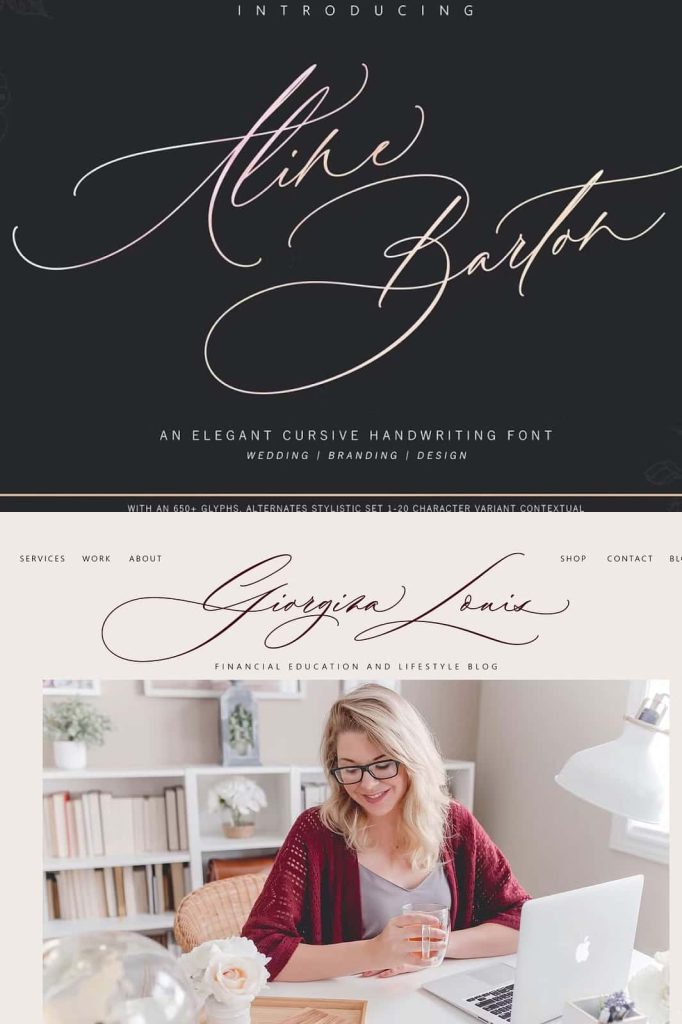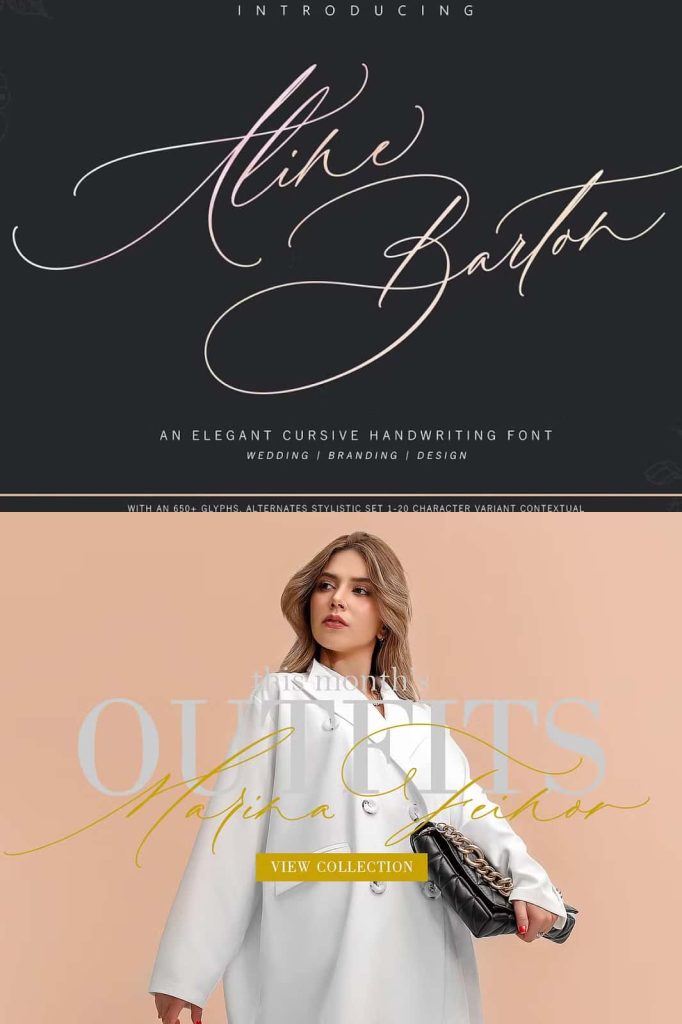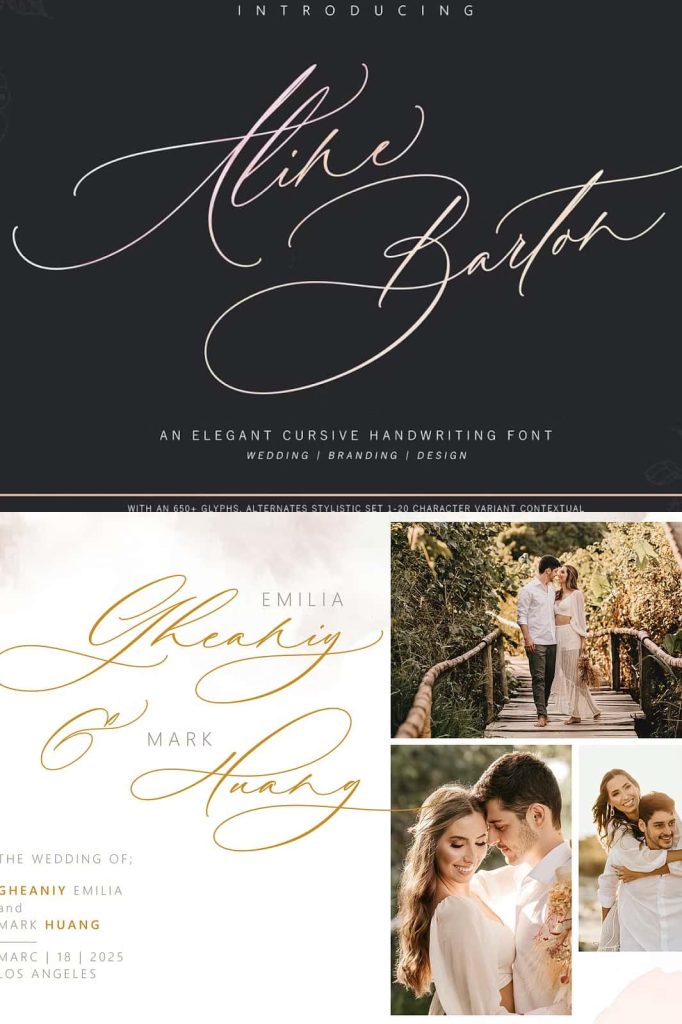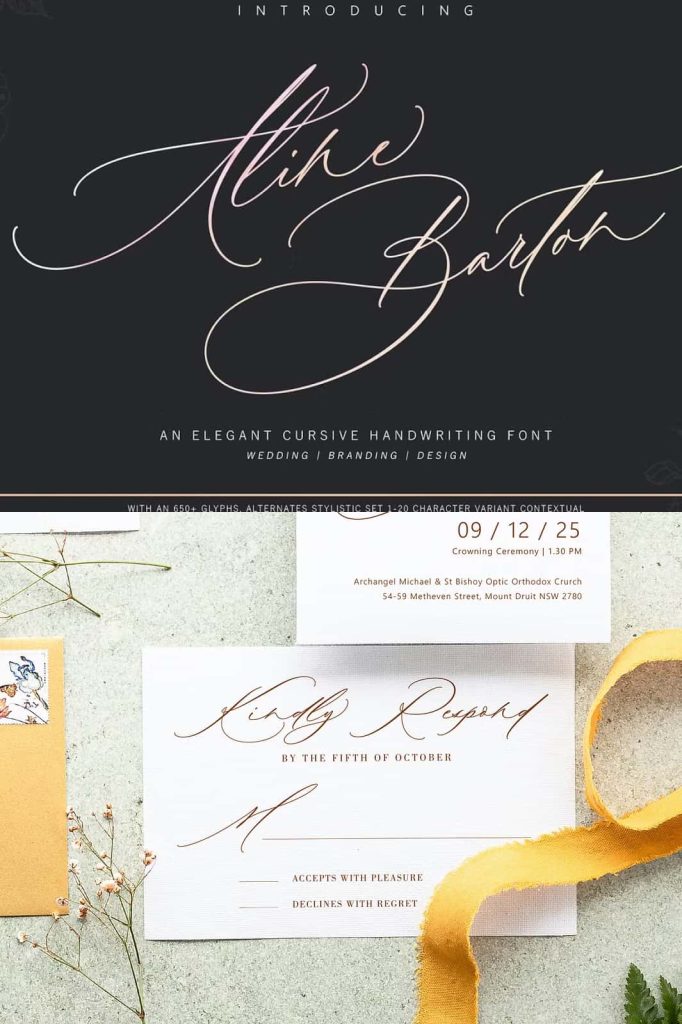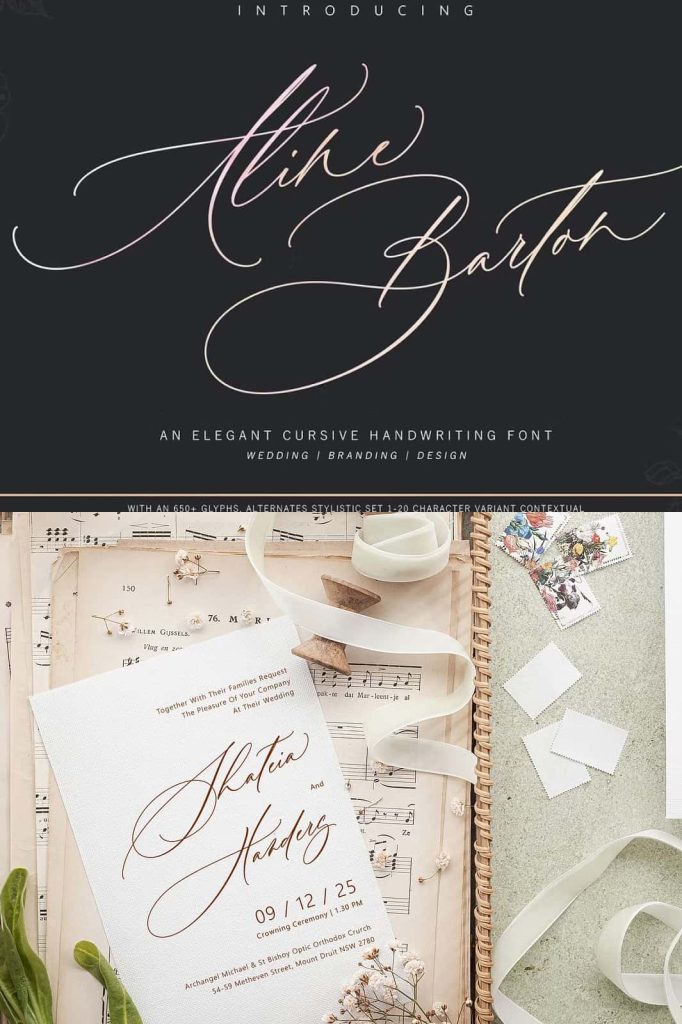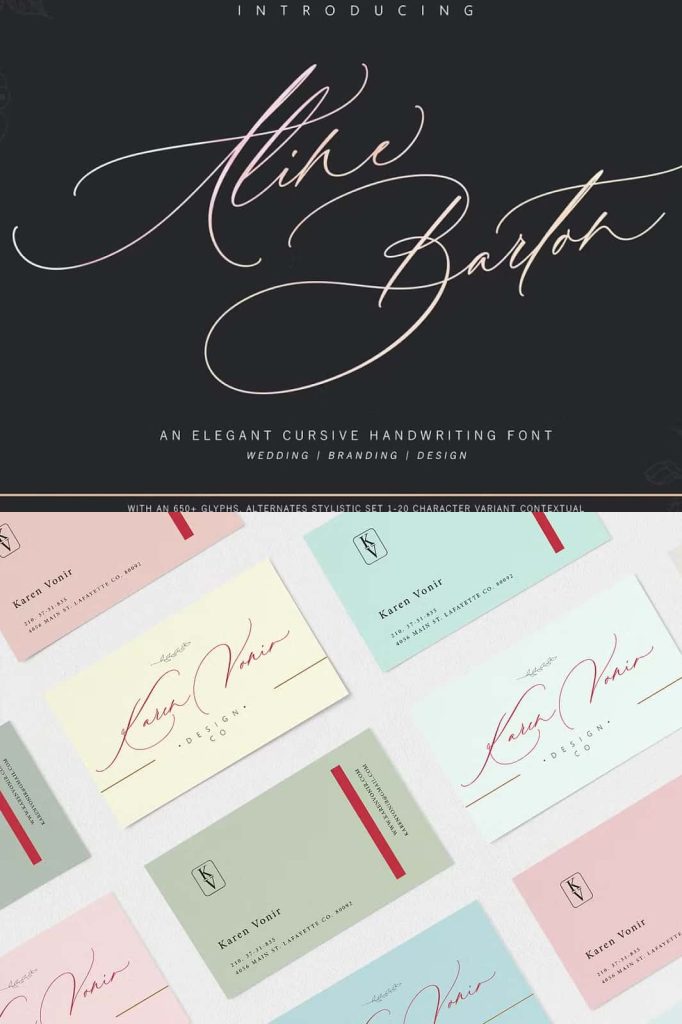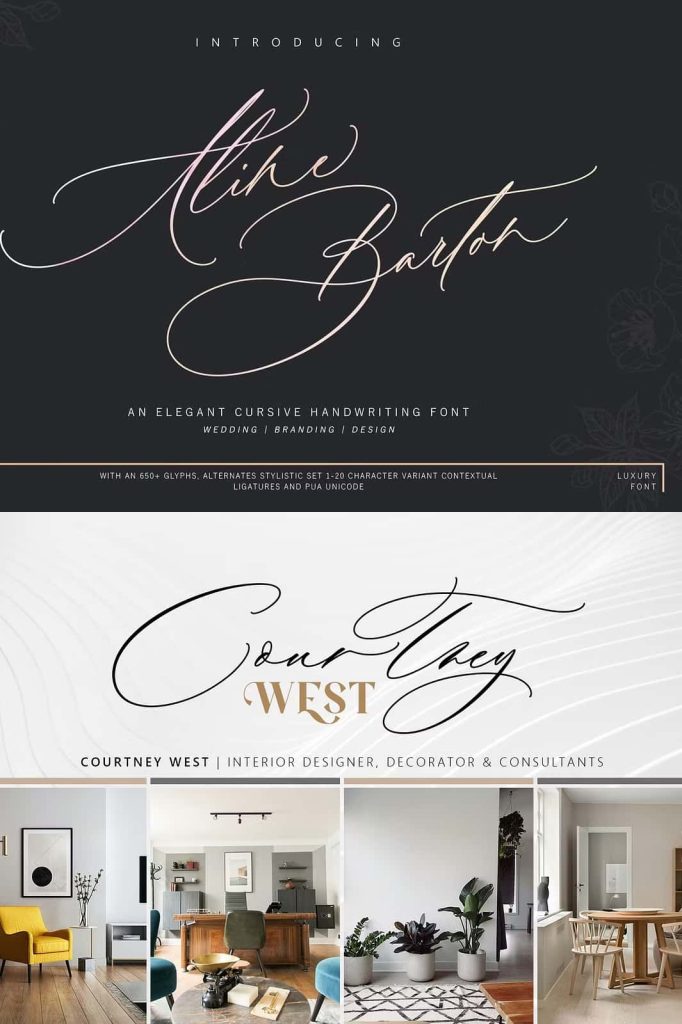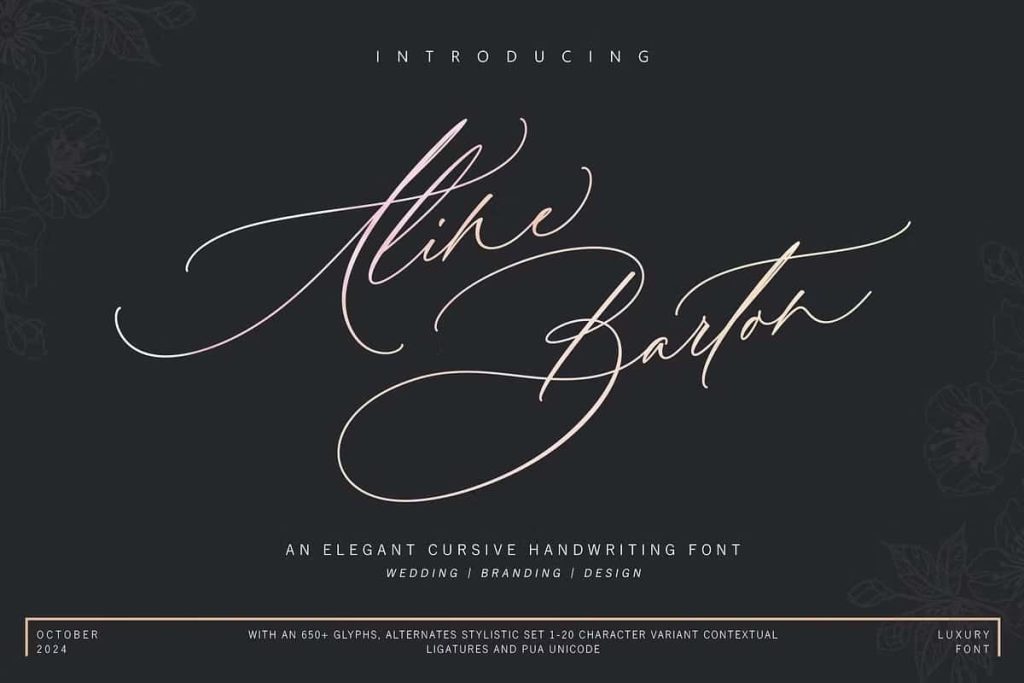
Aline Barton
Aline Barton is a beautiful Handwritten script font that is suitable for branding, wedding invitations, greeting cards, posters, name card, quotes, blog header, logo, fashion, apparel, letter, stationery and other projects.